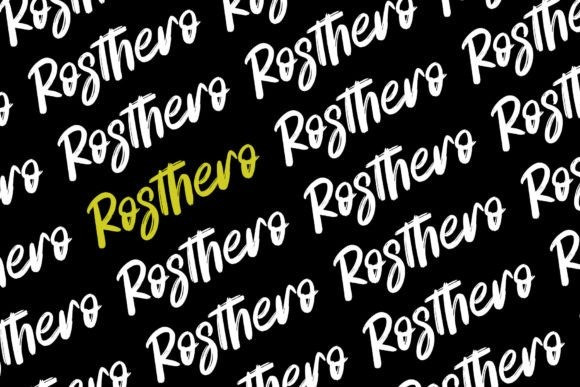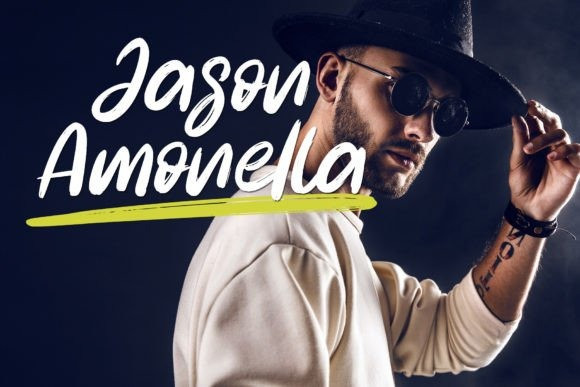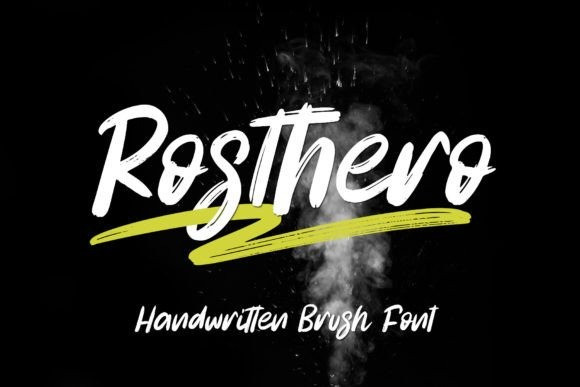
Rosthero Font
Rosthero Brush Font is a natural display font. It is a tough-looking font with a strong brush touch, ready to rock every design you want to create. It is perfect for logos, quotes, posters, clothing, and so much more! Add it to any of your creative projects, and be amazed by the generated outcome! This font is PUA encoded which means you can access all of the amazing glyphs and ligatures with ease!